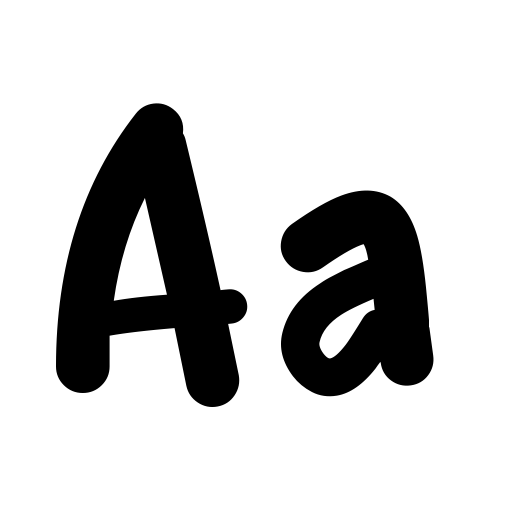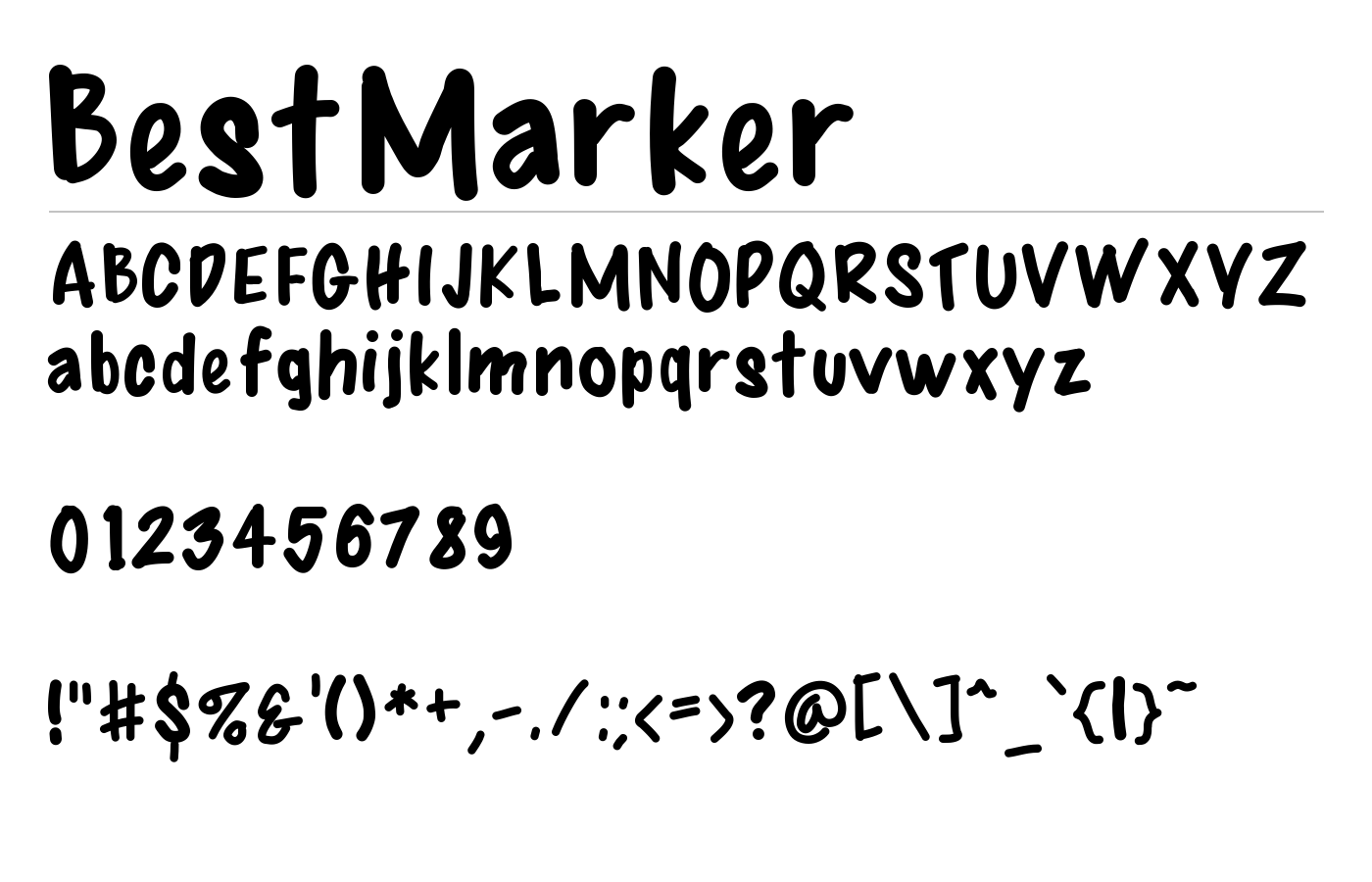
BestMarker is a playful, casual sans serif font that mimics the look of bold handwritten marker strokes with rounded edges and slight irregularities, giving it an approachable and friendly feel. Its chunky, medium-width letterforms with moderate x-height make it ideal for informal designs like children's books, creative branding, posters, and headings where a natural, hand-drawn touch is desired. This font works well to add warmth and personality to any project looking for a fun and lively handwritten style.
BestMarker Font
About BestMarker Font